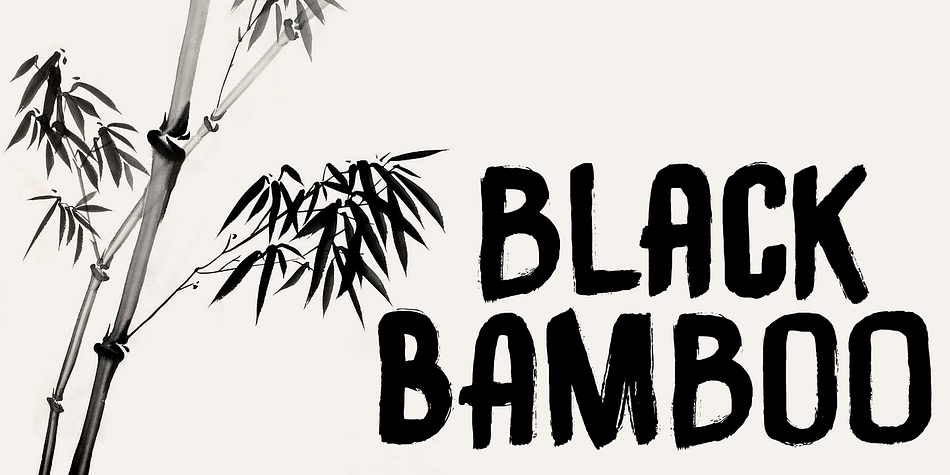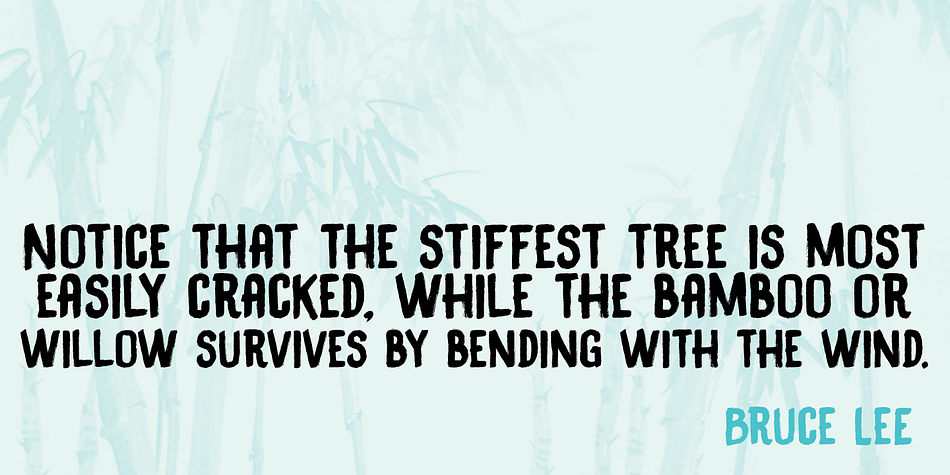
Black Bamboo is a hand display font published by Hanoded.
Black Bamboo is a beautiful plant. My father-in-law, who recently passed away, loved it and had a prized specimen growing in his garden.
This font was named in his honour. Black Bamboo font is a bold typeface, created using a good brush and quality paint. It is all caps, but upper and lower case differ and can be freely interchanged. Of course, Black Bamboo comes with all diacritics.